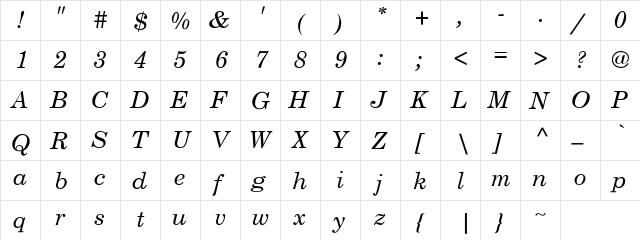
NewCenturySch 4 Regular
Design Context for NewCenturySch 4 Typeface
NewCenturySch 4 takes a measured approach to typography — its balanced proportions and neutral character make it a reliable workhorse for both digital and print work.